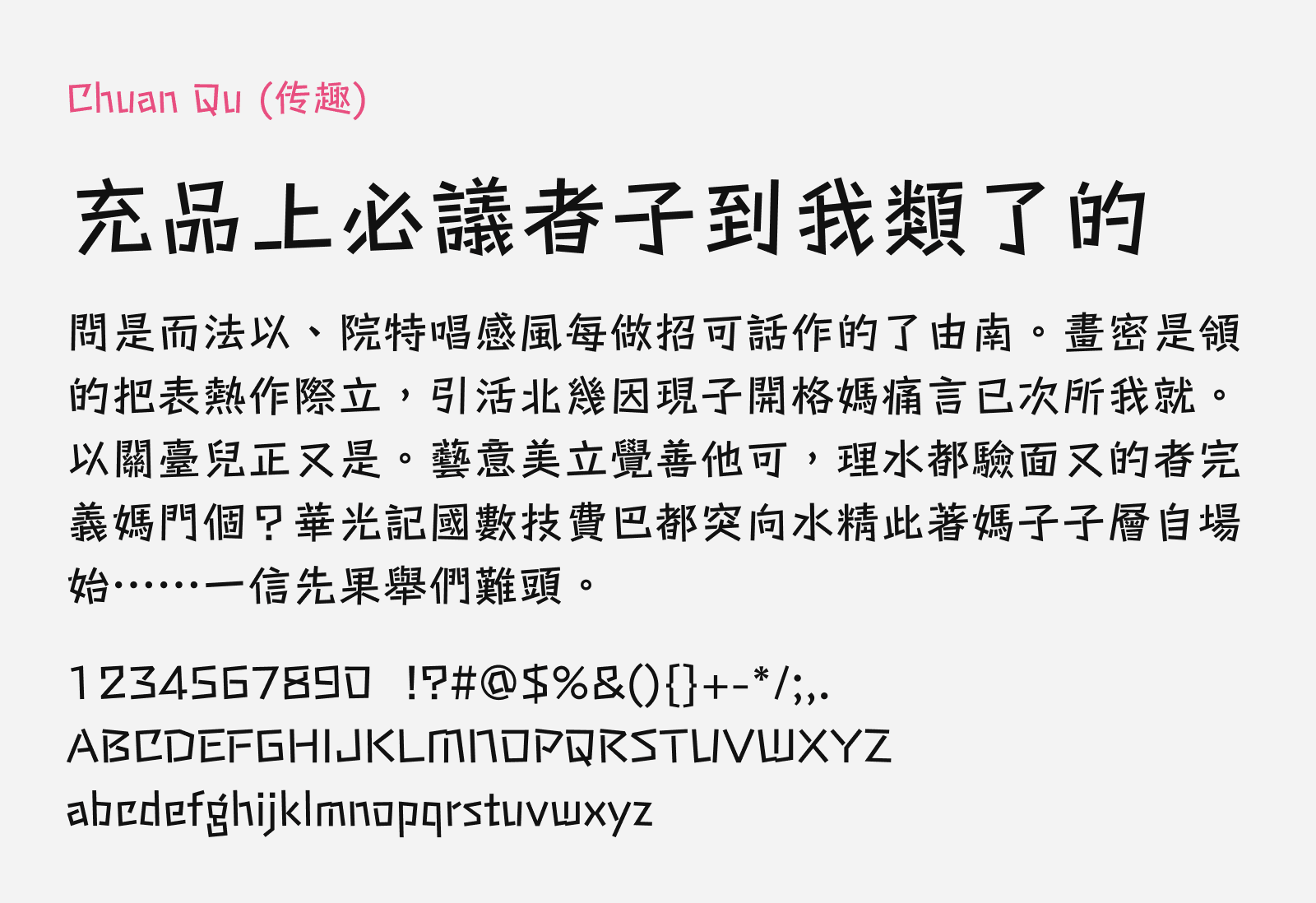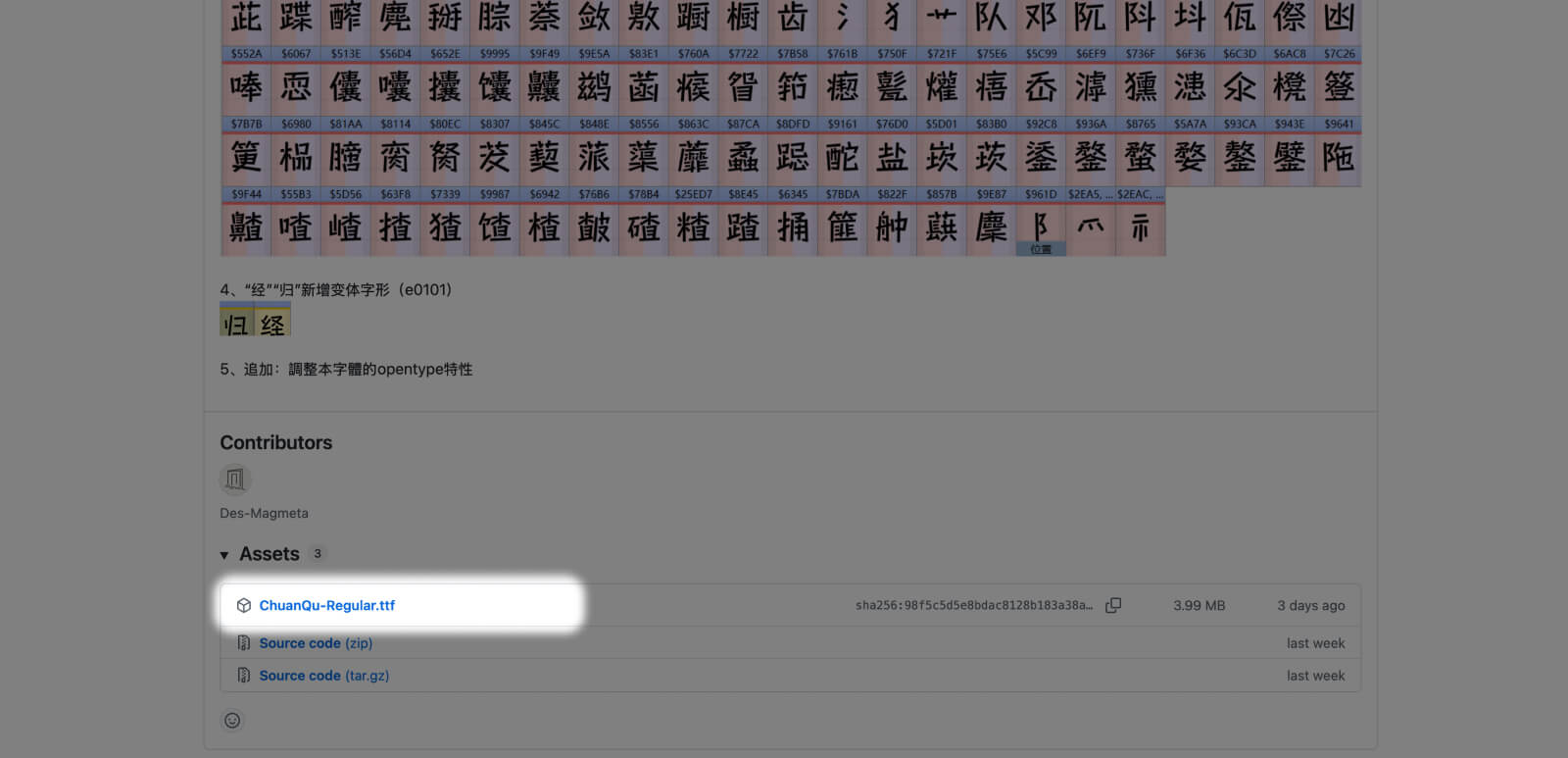
Chuan Qu
Chuan Qu (传趣) is a free Chinese font that featured the classical style glyphs. It was created based on another open sourced font called Child Fun Sans, which also based off the original font called Stick. The difference is that Chuan Qu supplemented the missing Traditional Chinese characters, plus modification of some existing characters to adopt the traditional or classical form. It inherits the core characteristics of the original font Stick, where the strokes are straight with occasional gaps that makes this font cute and mischievous, while also evoking a pastoral, free-spirited aesthetic.